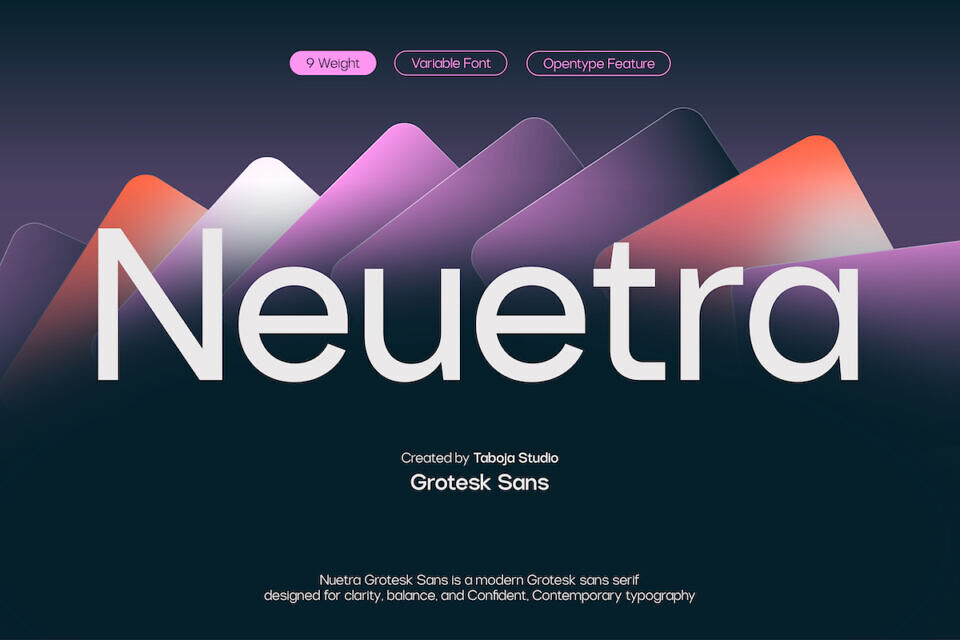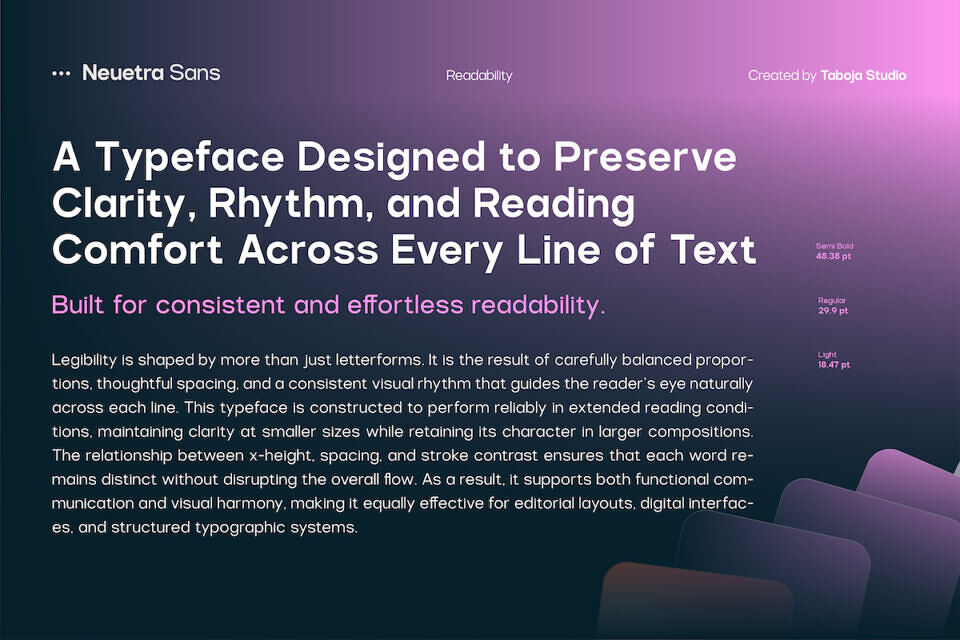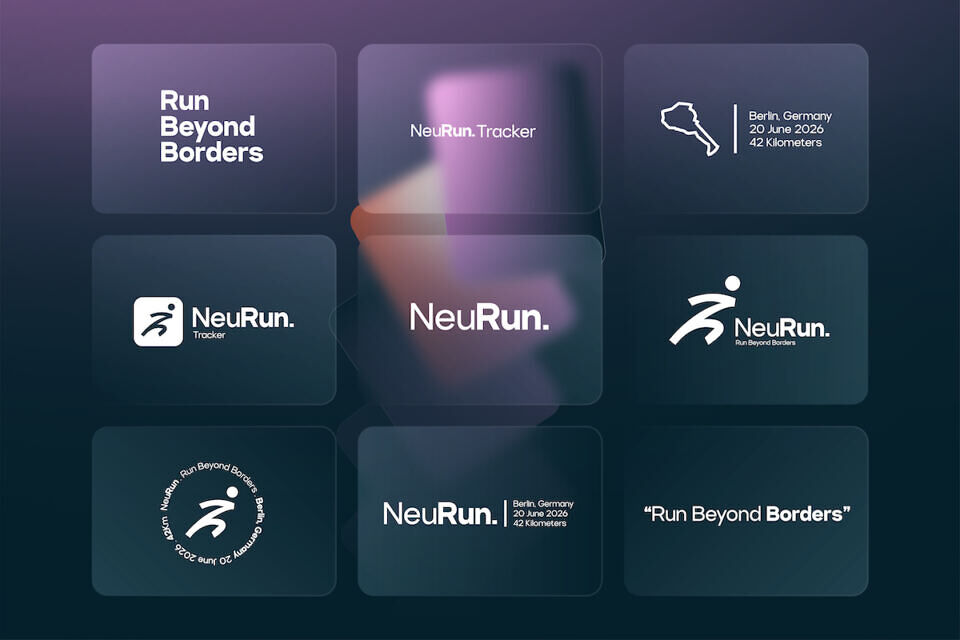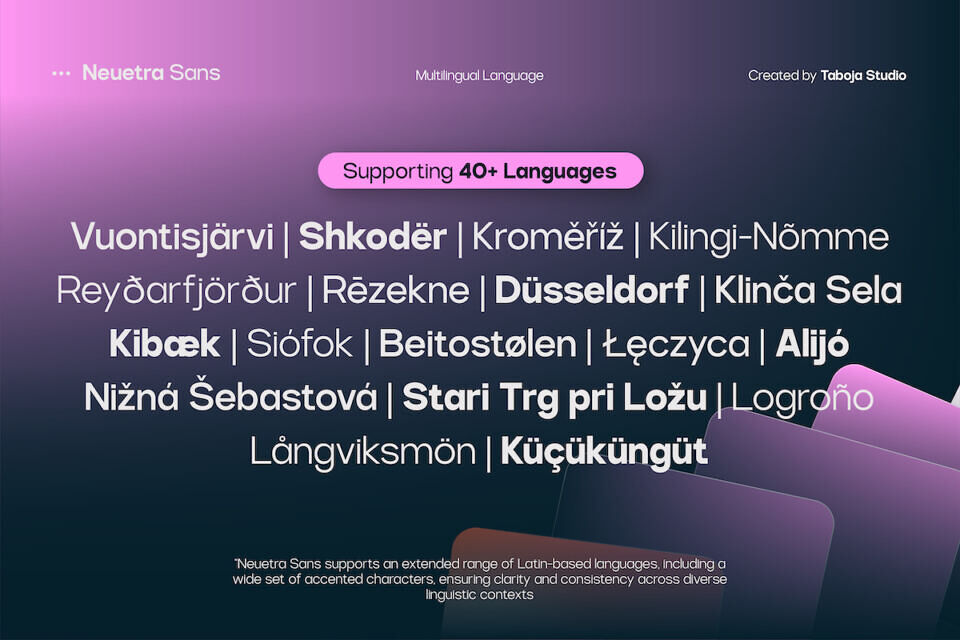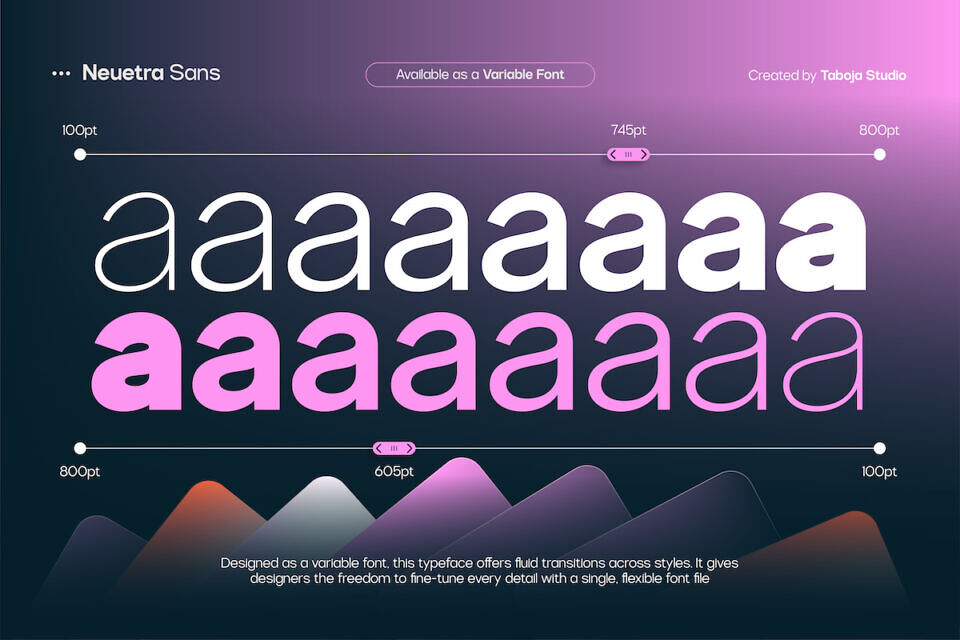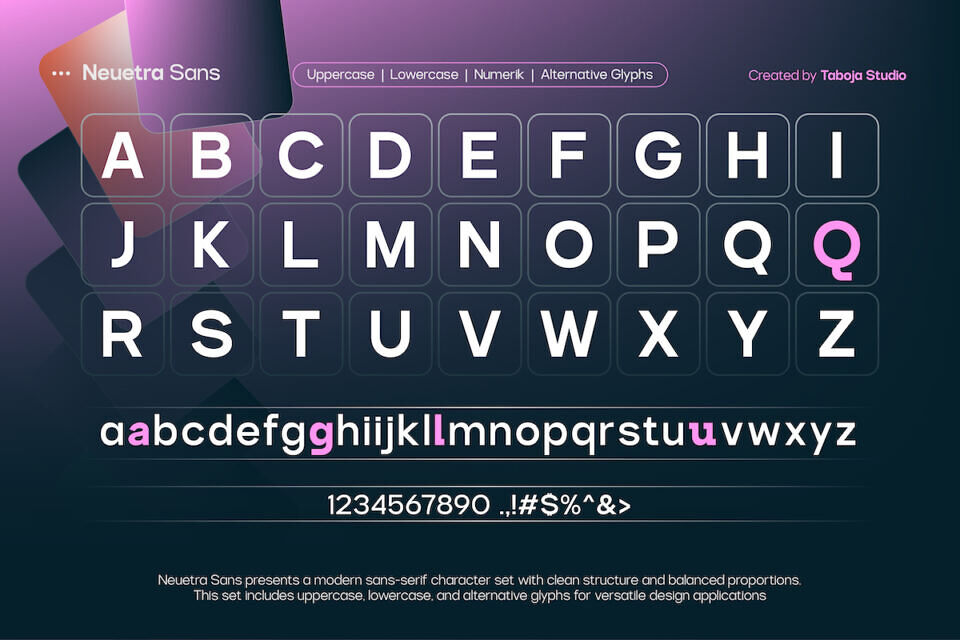
TBJ Neuetra is a grotesk sans serif drawn from a Neuetral base with humanist details. It doesn’t push for attention it earns it through consistency. The result is a typeface that feels familiar without being generic, and restrained without being stiff.
The full family spans 9 weights with a full variable axis, giving designers real flexibility without sacrificing cohesion. Neuetra fits naturally into brand identity systems, editorial layouts, UI design, and poster work. It suits brands and studios that need a workhorse typeface reliable across contexts, honest in form, and easy to build a visual system around.